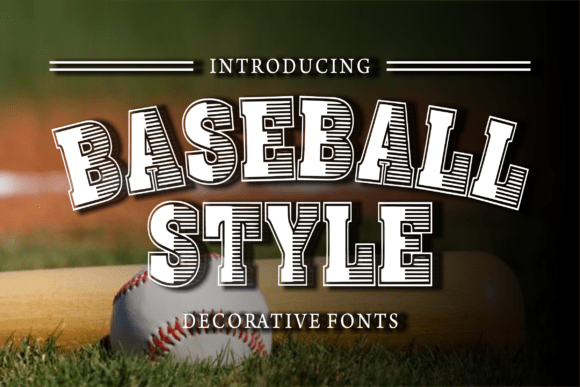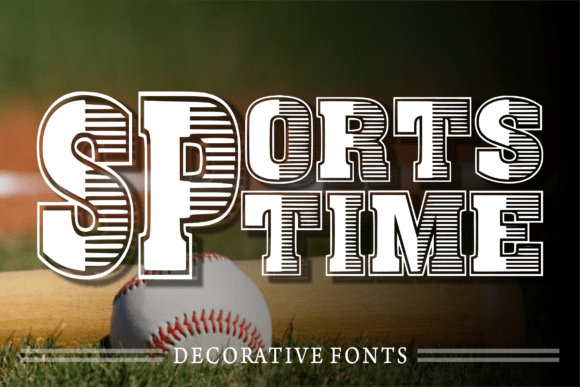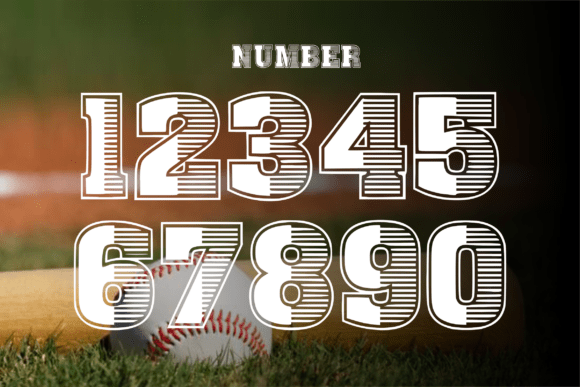
Baseball Style Font
Unveiling “Baseball Style”, a robust and eye-catching font that pays homage to the classic American pastime. Its striking attributes make it an ideal choice for t-shirt design, billboard artistry, banners or any other creative applications. This unique style not only delivers readability at large scales but provides an irresistible sporty charm to your design tasks.